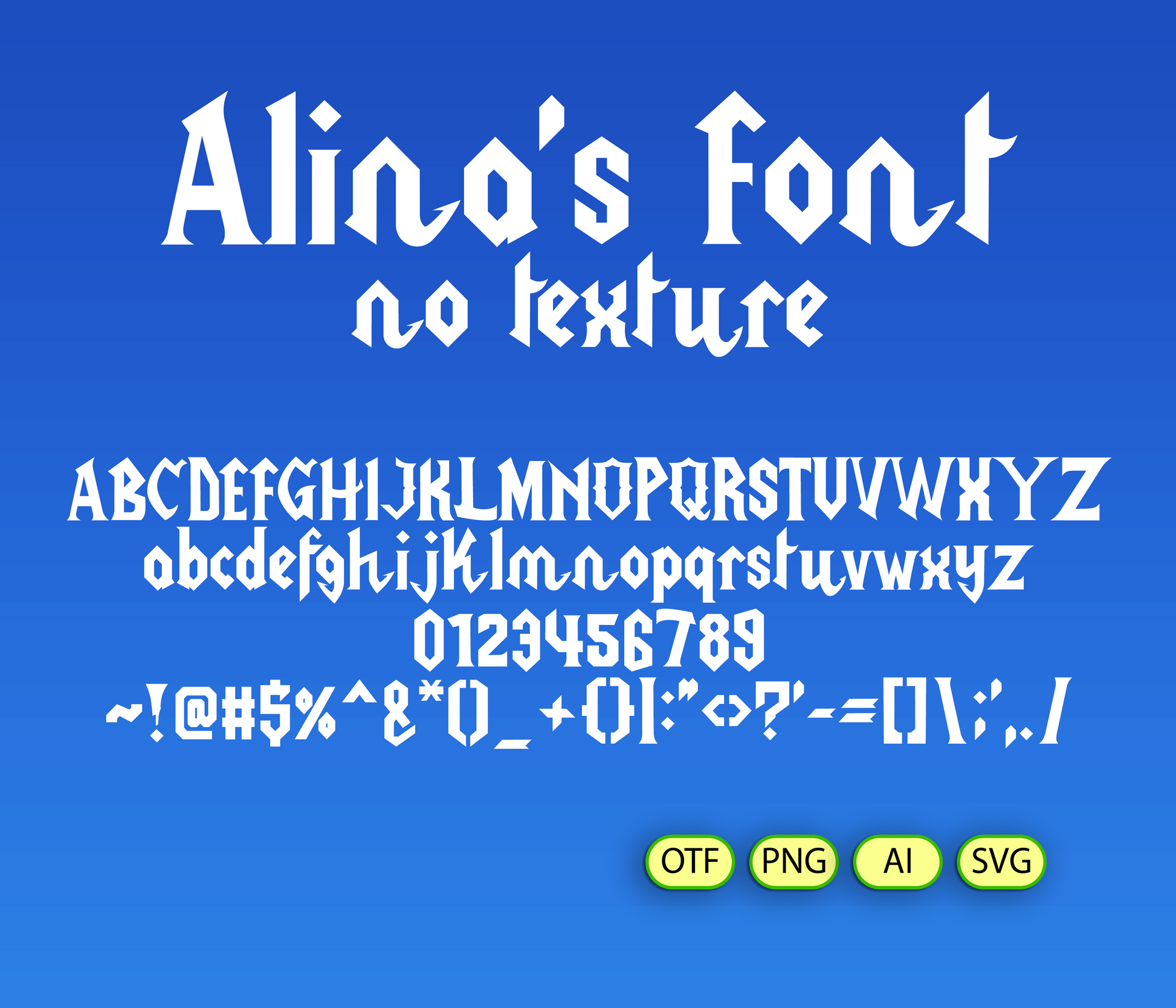
Card Duel Adventure Font
Introducing the Card Duel Adventure Font, a creation born from the thrilling and strategic spirit of a vibrant card game universe! This font embodies the bold essence and distinctive textures found in the high-stakes world of card battles. Drawing inspiration from the exciting tales of duels and strategy, this font aims to sprinkle a dash of adventurous magic onto your words. It's not merely a font; it's your passport to capturing the dynamic energy and imaginative flair of card game adventures in your projects.
What Font is Card Duel Adventure Font?
The Card Duel Adventure Font is a blend of bold, geometric shapes and easy-to-read letters. It encompasses uppercase and lowercase letters, numbers, and special characters, making it a versatile choice for an array of creative endeavors. Perfect for crafting, the Card Duel Adventure Font is your go-to for designing game-themed posters, event invitations, trading card designs, and so much more. It's like having a slice of the card-dueling world right on your computer! With the Card Duel Adventure Font, your projects will resonate with the adventurous spirit and striking aesthetics of a universe filled with strategy and excitement. This font is your golden ticket to making everyday designs feel a bit more extraordinary.
What Can You Do With Card Duel Adventure Font?